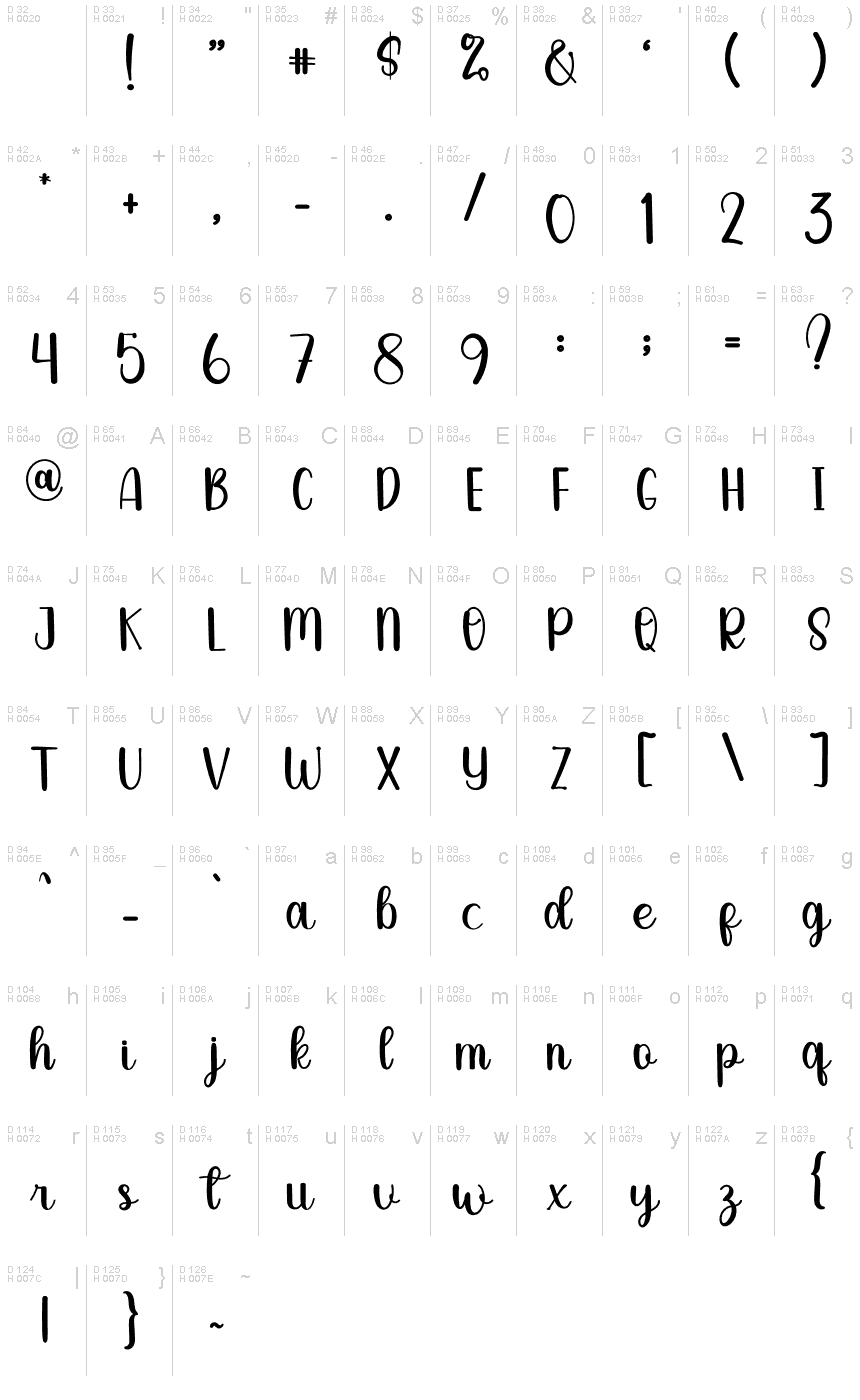
HAPPY Careful
Happy Careful is a delightful handwritten font designed by FreshtypeINK. With its semi-light weight, this font exudes a sense of elegance and playfulness. Its organic strokes and charming imperfections make it perfect for projects that require a touch of whimsy, such as children's book illustrations, greeting cards, and playful branding. Whether you're designing a logo for a vibrant café or creating eye-catching social media graphics, Happy Careful will bring joy and personality to your creative ventures. Embrace the carefree spirit of this font and let your designs come to life with its cheerful vibes.